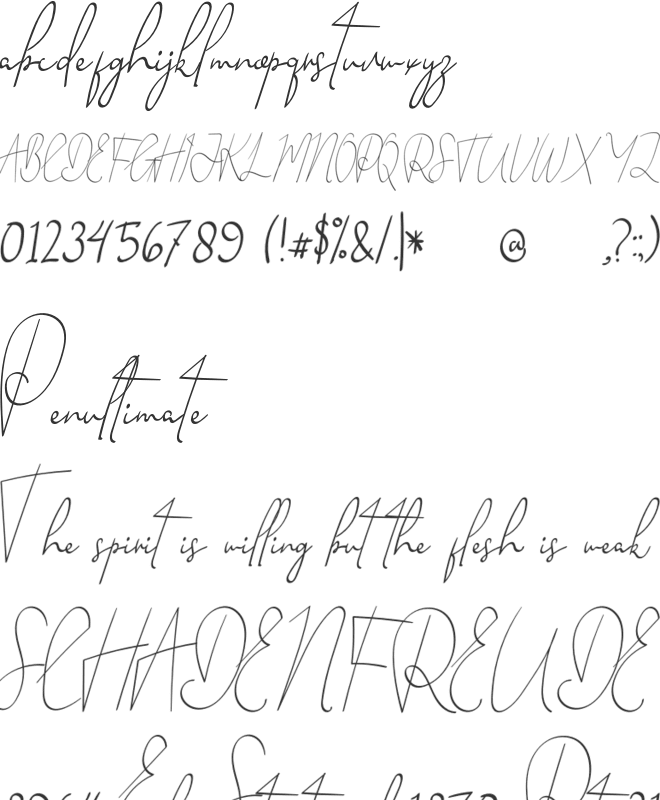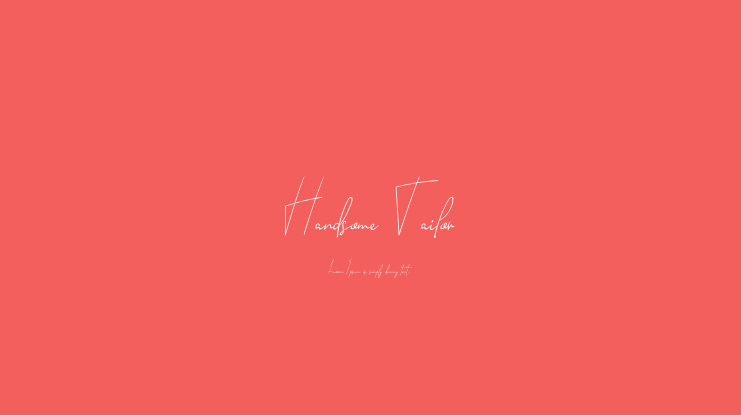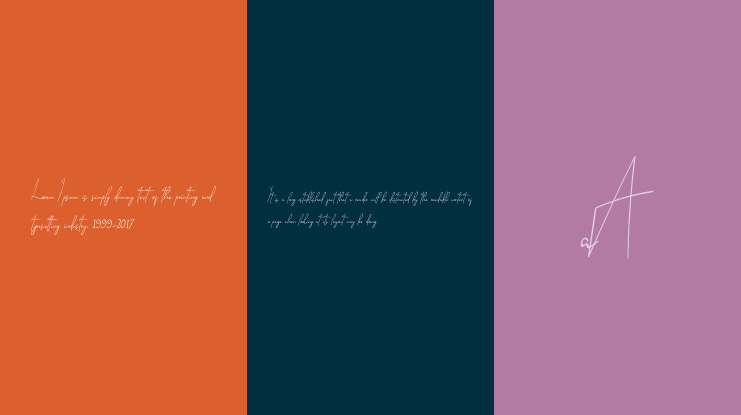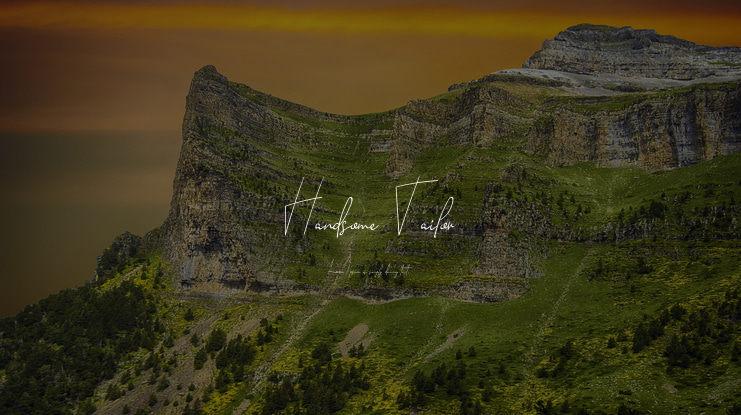
Handsome Tailor Font
Handsome Tailor is a dainty and sweet script font. This font is neatly crafted and highly detailed. Whatever the topic, this font will be a wonderful asset to your font library, as it has the potential to enhance any creation. Attention :